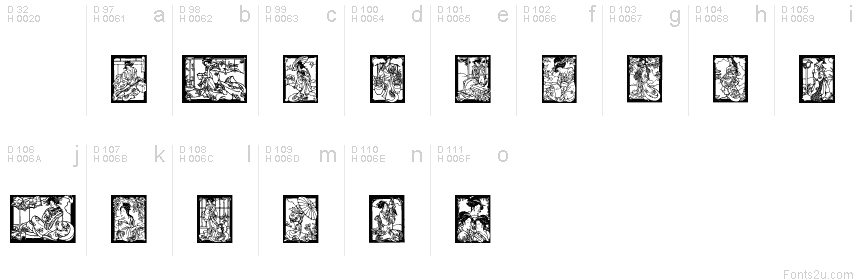
Geisha
Geisha font by Lime is a free Asian dingbat typeface that captures graceful, woodblock-style scenes of traditional geishas in flowing kimonos. Each glyph feels like a miniature illustration: crisp black lines, layered patterns, and framed vignettes that drop into a layout like ready-made art. The imagery carries a calm, contemplative mood, with detailed hair ornaments, robes, and garden backdrops that add instant storytelling to any design.
Using Geisha as spot art or full-page panels works beautifully for themed invitations, cultural event posters, book chapter openers, restaurant menus, packaging, and zine graphics. This free font excels when you let the icons breathe at larger sizes, then support them with a simple sans serif for text so the intricate drawings stay center stage.